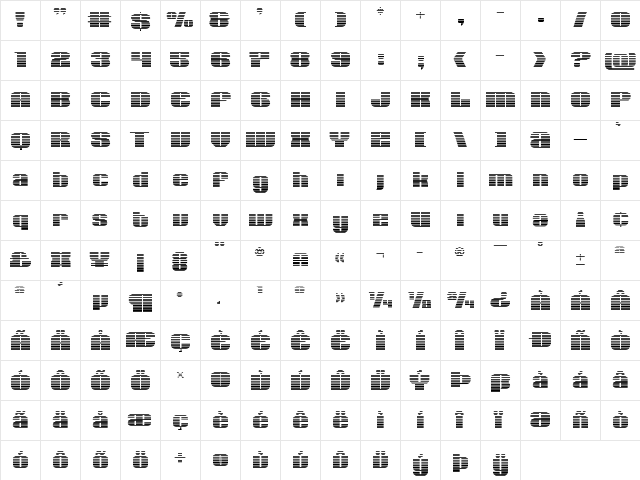
Nolo Contendre Gradient Regular
Design Context for Nolo Contendre Gradient Typeface
Nolo Contendre Gradient is a composed and adaptable typeface that performs quietly and consistently across a wide range of design contexts.